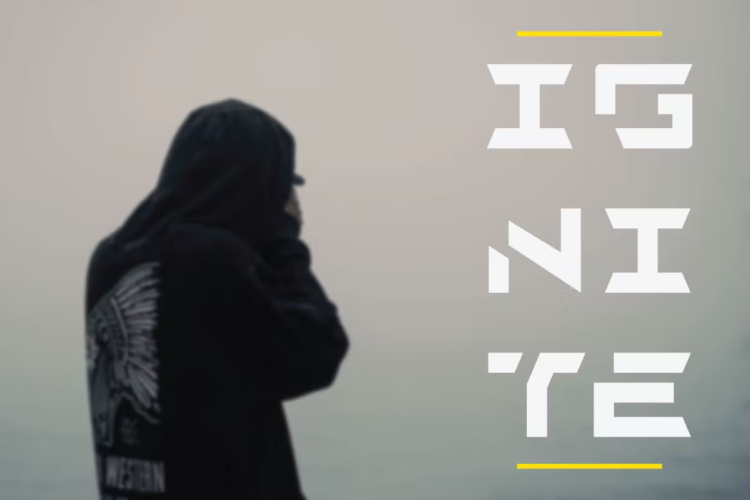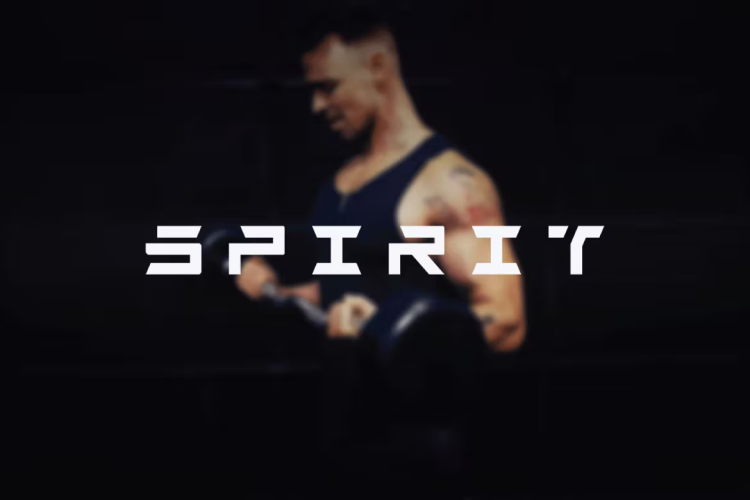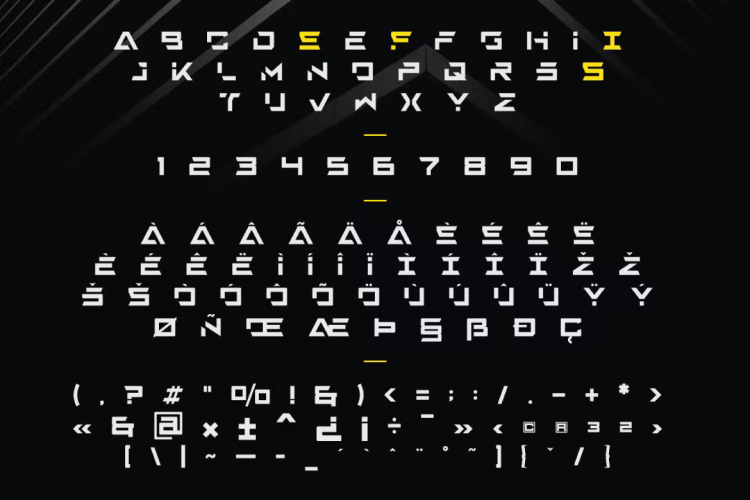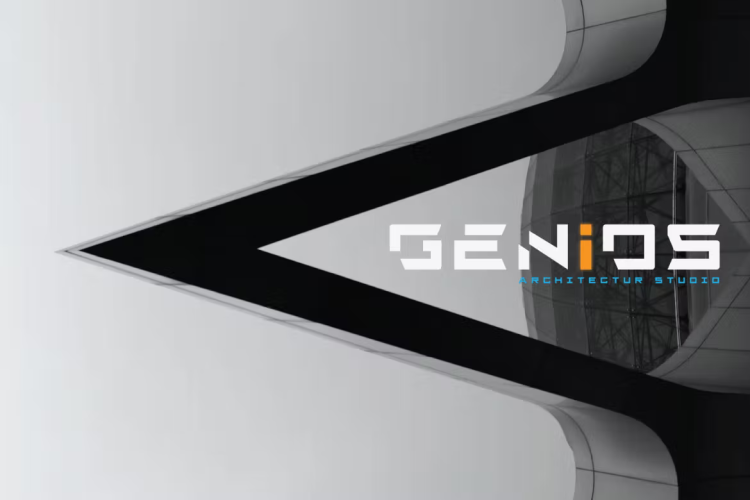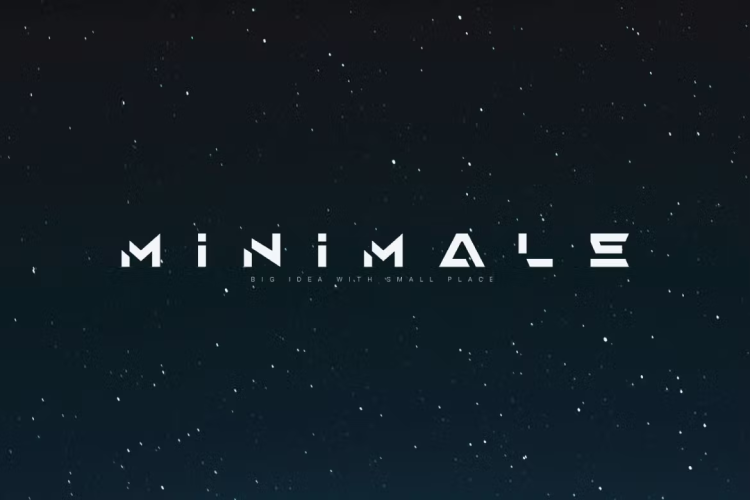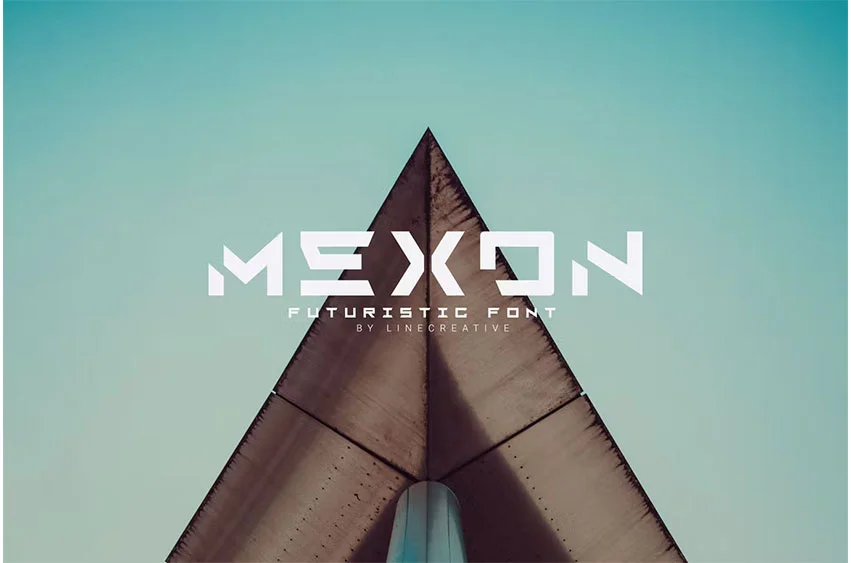
Mexon Font
Mexon Font is a sans-serif typeface with minimal, modern, and futuristic style. This typeface is available in all caps only with stylistic alternates feature plus suppor…
Mexon Font is a sans-serif typeface with minimal, modern, and futuristic style. This typeface is available in all caps only with stylistic alternates feature plus supports multilingual languages. This font is appropriate for your branding, logo design, shirts, etc.
Where Mexon Font works best
Mexon Font stays legible at small sizes, which makes it a strong choice for navigation, buttons and dashboards in web design and app interfaces.
Clean sans serifs like Mexon Font are the default language of SaaS, fintech and product branding.
What is Mexon Font good for?